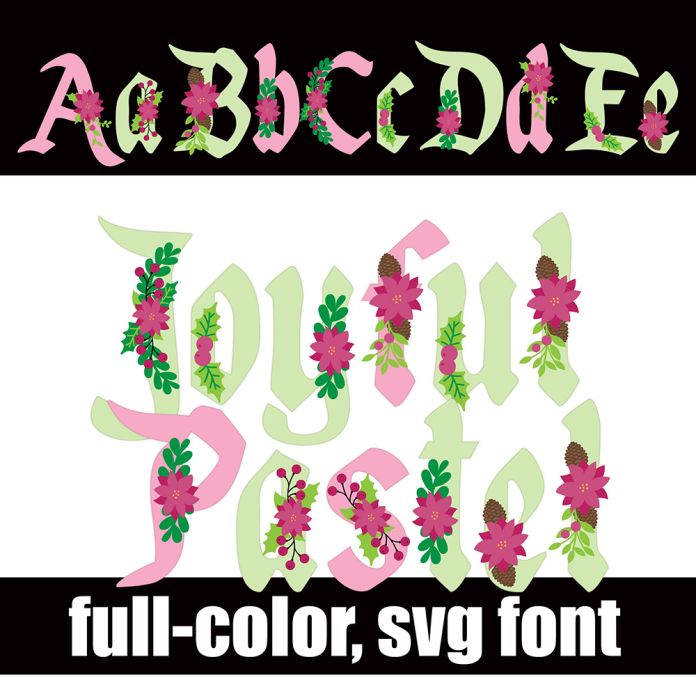
This full-color font features a calligraphy font and Christmas florals. There is an alt case with an additional color of each letter. This font works best for titles, displays, posters and more. Please note color fonts will show as black in non compatible programs. This font type is compatible with Silhouette Studio.